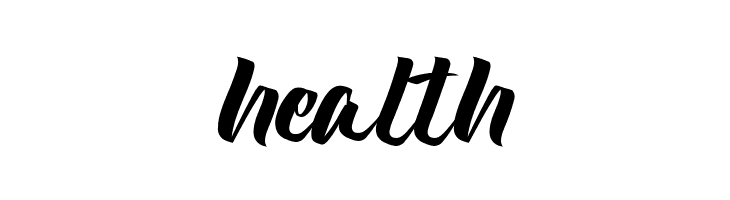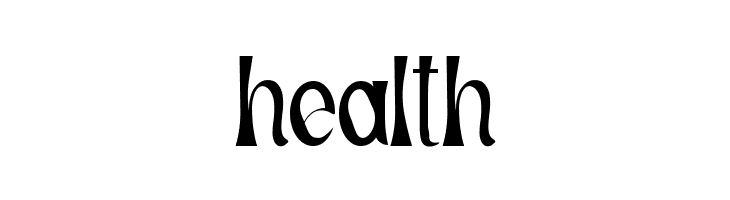
A modern serif font with sharp, angular serifs and clean lines, offering elegance and sophistication.
A playful and decorative font with whimsical patterns and textures.
A playful and bold font with rounded edges and uniform strokes.
A bold, distressed font with a vintage, rugged style.
A playful, casual handwritten font with smooth curves and a friendly appearance.
A bold, expressive script font with a dynamic, handwritten style.
A bold, modern font with high contrast and geometric influences.
A playful, hand-drawn font with a whimsical and dynamic style.
A whimsical and artistic font with exaggerated curves and dynamic strokes.
A graceful, cursive font with elegant loops and swirls.